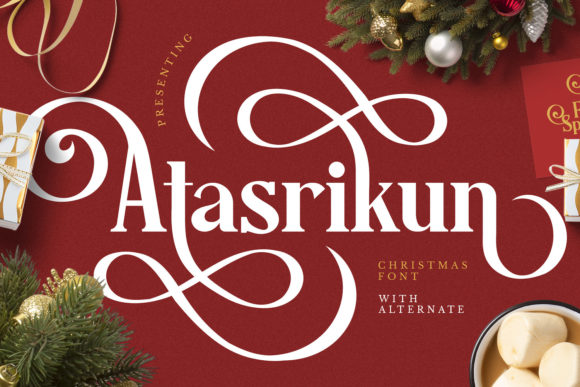
The Designer’s Delight: Unlocking the Creative Potential of Atasrikun Font
I still remember the frustration of working on a project, pouring my heart and soul into every detail, only to be held back by one thing: the font. My client wanted something stylish, something distinct, something that would make their brand stand out. I scoured the internet, tried font after font, but nothing seemed quite right. That was until I stumbled upon Atasrikun Font. ✨
It was like a breath of fresh air – a stylish and distinct serif font that added a touch of elegance to my design. And the best part? It was PUA encoded, making it incredibly easy to access all the glyphs and swashes. In this article, I’ll share my experience with Atasrikun Font, its features, and how to make the most of it in your designs.
What I Love About Atasrikun Font
- ✨ Stylish and Distinctive: Atasrikun Font has a unique personality that sets it apart from other serif fonts.
- ✅ PUA Encoded: Easy access to glyphs and swashes, making it a breeze to customize your designs.
- 💫 Highly Versatile: Perfect for a wide range of design projects, from branding and advertising to crafting and creative hobbies.
While Atasrikun Font is an excellent choice, there are a few things to keep in mind: 🤔
- ⚠️ Glyph Overload: With so many glyphs and swashes available, it’s easy to get overwhelmed. Take some time to explore the font and plan your design carefully.
- ⚠️ Pairing Challenges: As with any distinctive font, pairing Atasrikun with other fonts can be tricky. Experiment with different combinations to find the perfect match.
The Story Behind Atasrikun Font
While the origins of Atasrikun Font are shrouded in mystery, it’s clear that the designer was inspired by a passion for typography and a desire to create something unique. The result is a font that’s both stylish and distinctive, perfect for adding a touch of elegance to your designs.